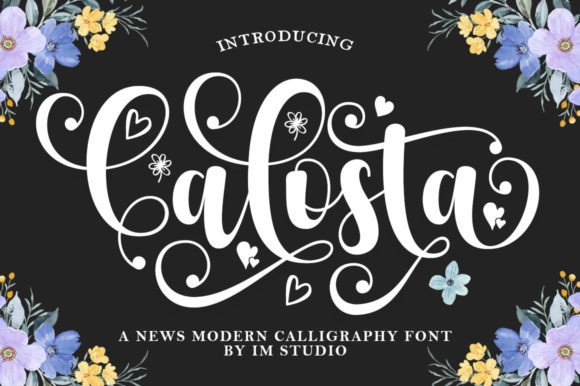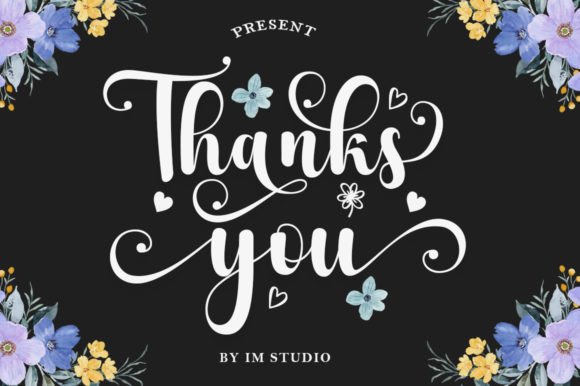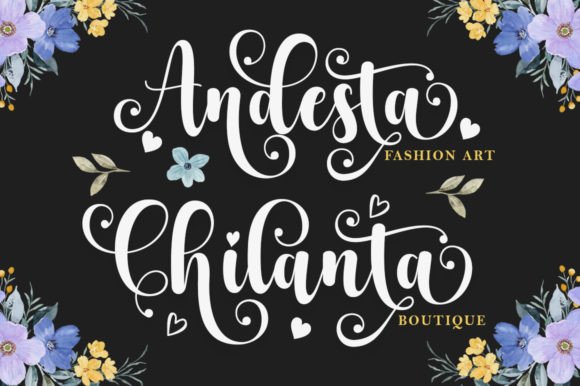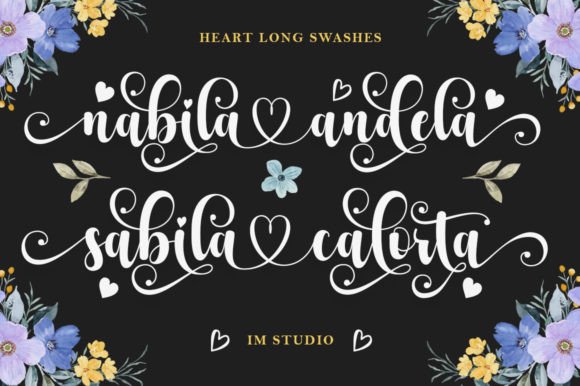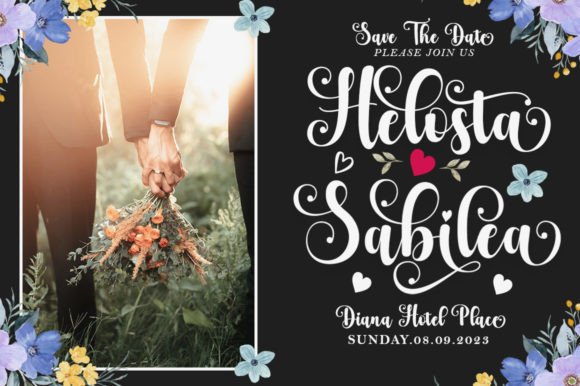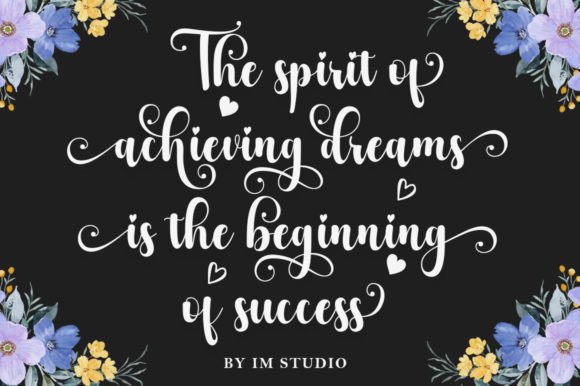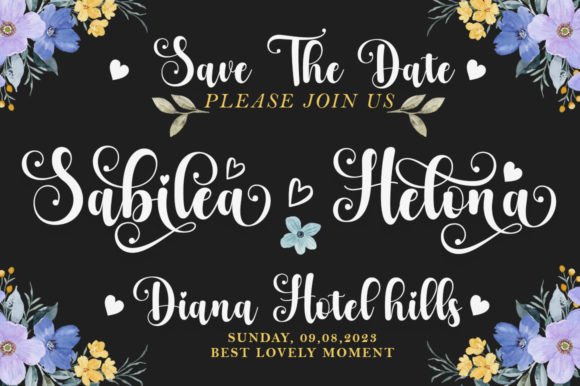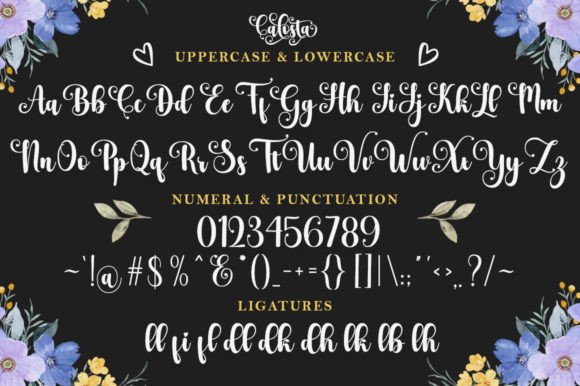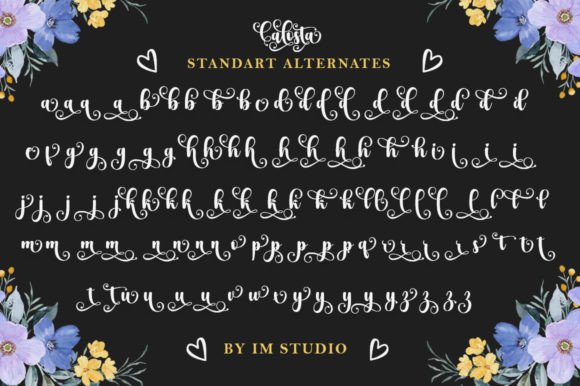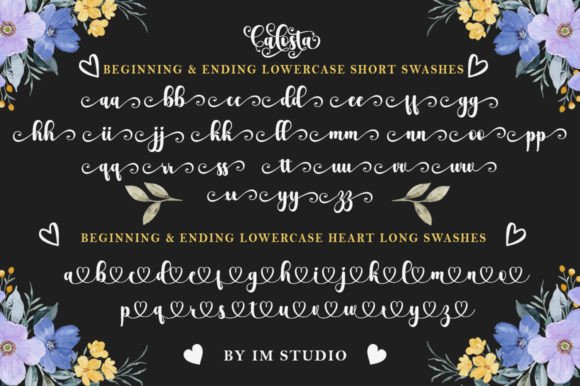
Calosta Font
About Calosta Font
Calosta is a sweet and delicate handwritten font. Dainty and joyful, this font will be ideal for writing wedding invitations, cards, or any other design that may need a romantic, personalized touch!